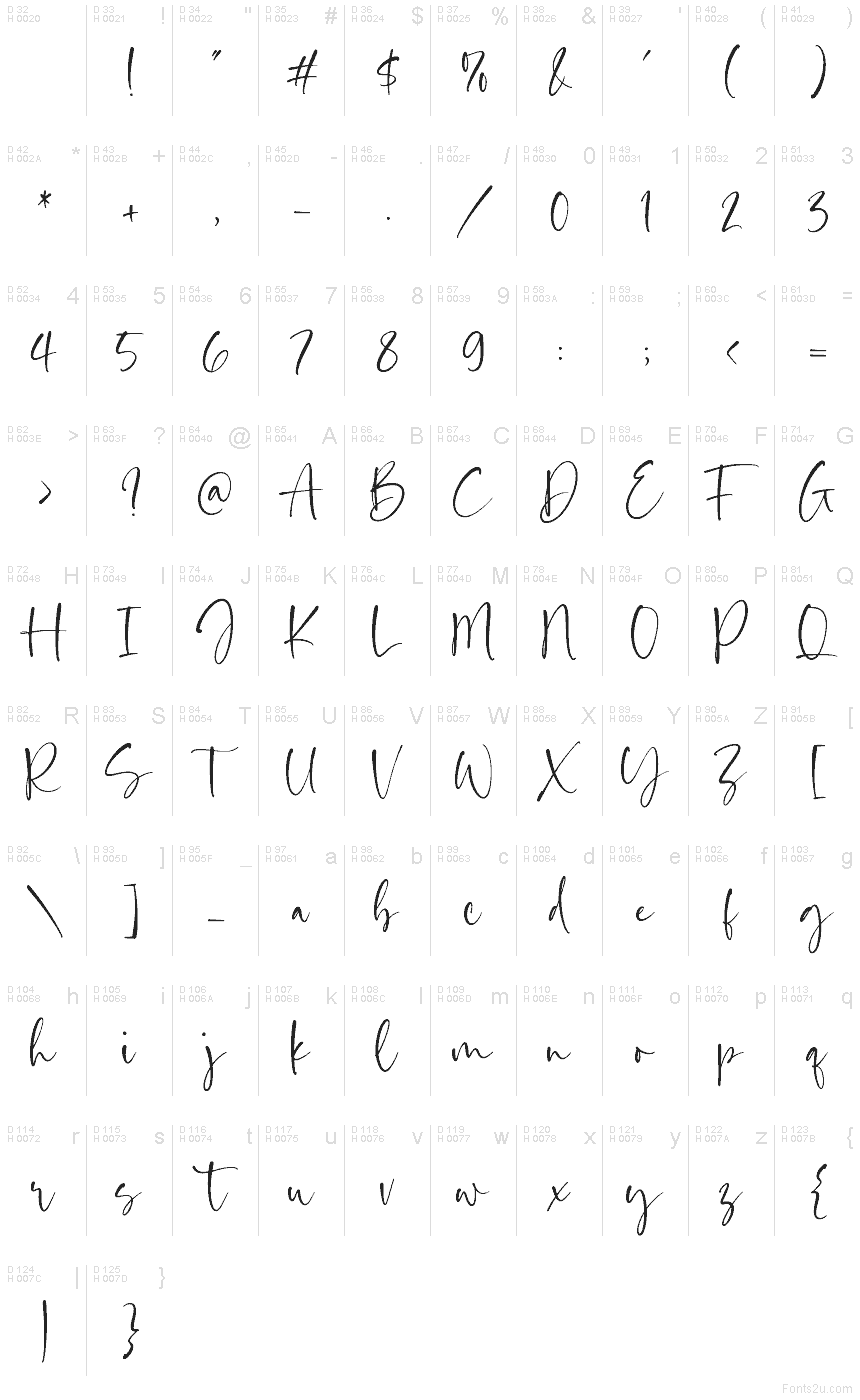
Daffodil Kingdom
Daffodil Kingdom font by Timur Type is a free light handwritten signature script font. Its airy strokes and fluttering baseline feel like fresh ink on textured paper—delicate, a touch wispy, and effortlessly graceful. Tall ascenders, loose rhythm, and elegant entry strokes give it that off-the-cuff authenticity brands chase without losing legibility.
Using Daffodil Kingdom, your wedding invitations, boutique logos, beauty packaging, photographer watermarks, social posts, and event signage gain a soft, romantic hush. This free font shines on spacious layouts where the letters can breathe; try pairing it with a quiet serif or a clean small-caps sans for contrast, and add a hint of letterspacing at larger sizes to keep the flow refined.